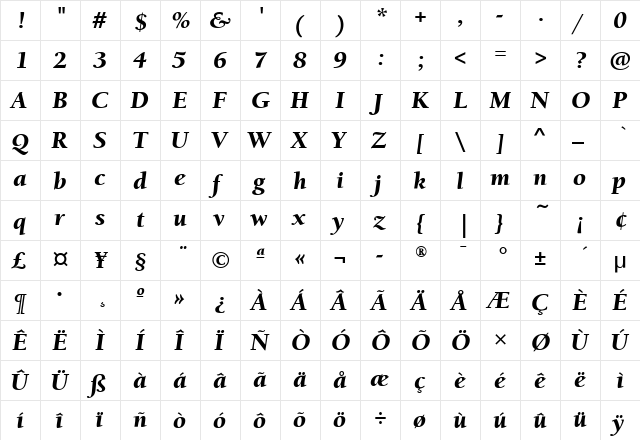
BerkeleyOldMdITC Black Italic
Design Context for BerkeleyOldMdITC Typeface
BerkeleyOldMdITC takes a measured approach to typography — its balanced proportions and neutral character make it a reliable workhorse for both digital and print work. The dynamic lean of this cut emphasises speed and emphasis in any layout.
Pro Tip: Use BerkeleyOldMdITC for emphasis, pull quotes, and subheadings where its slanted energy can add rhythm to the layout.